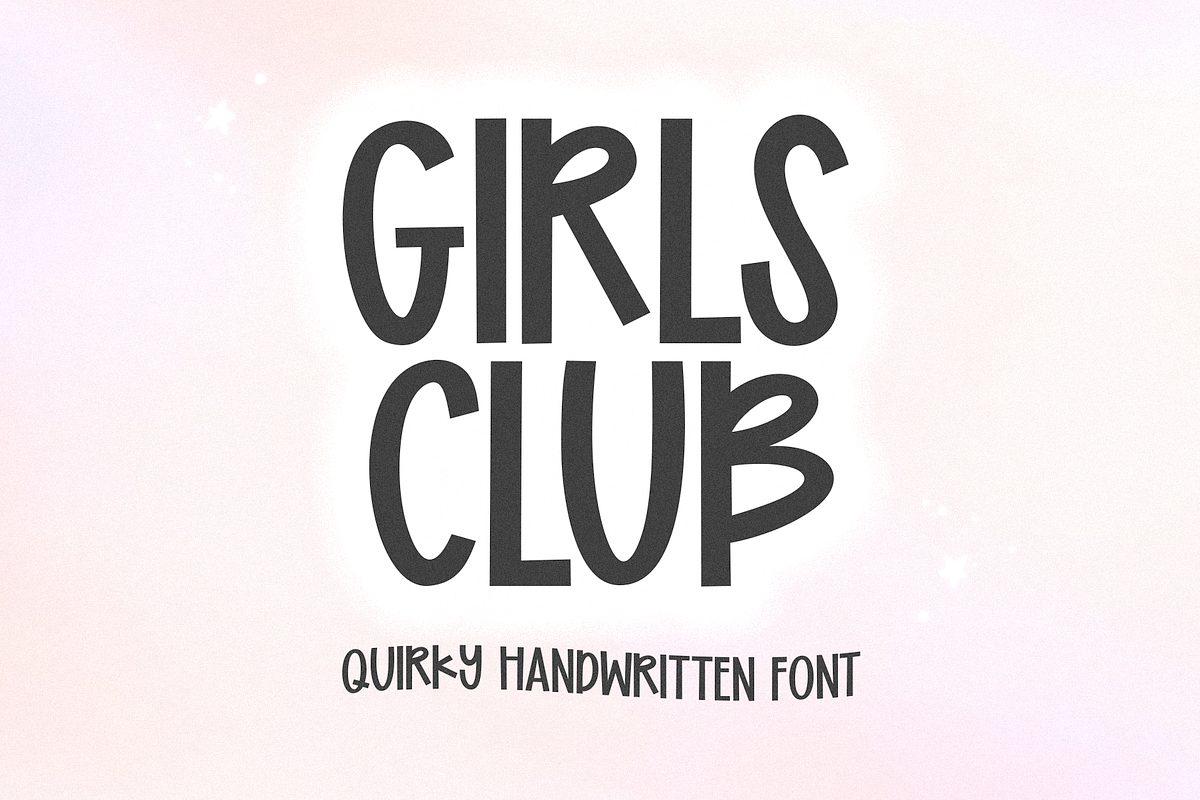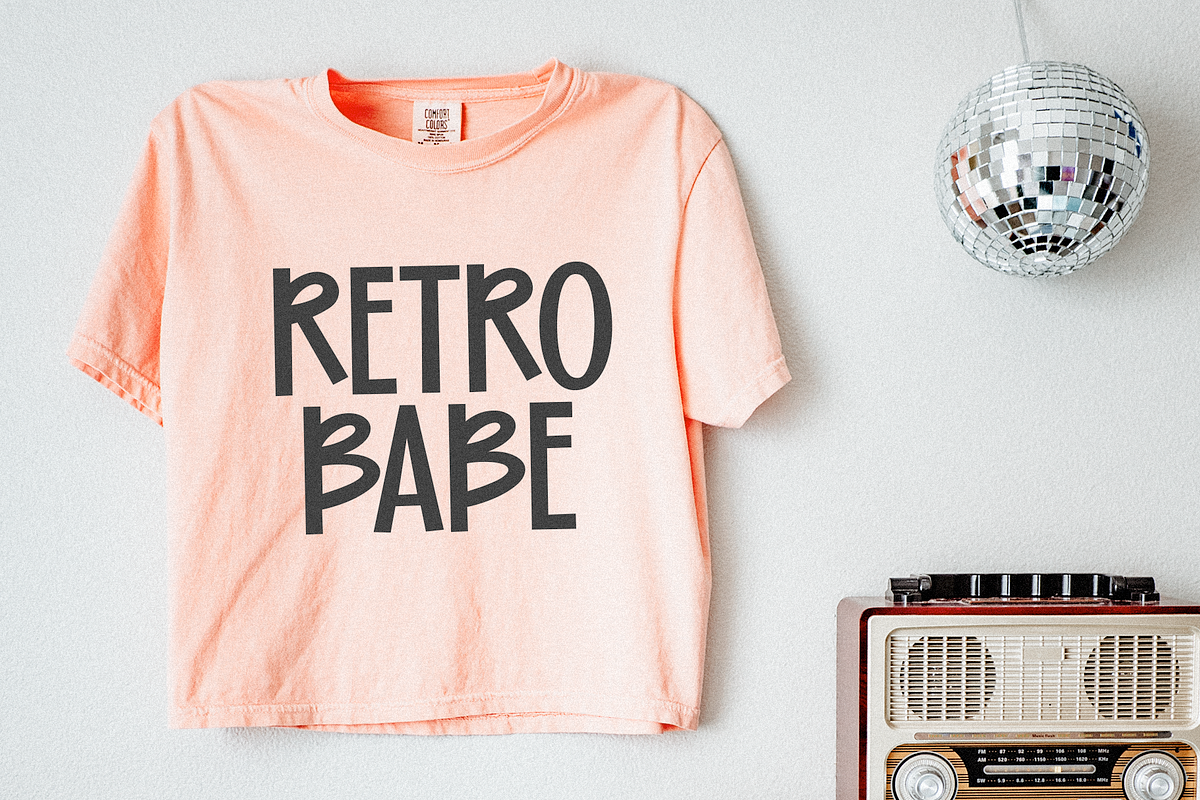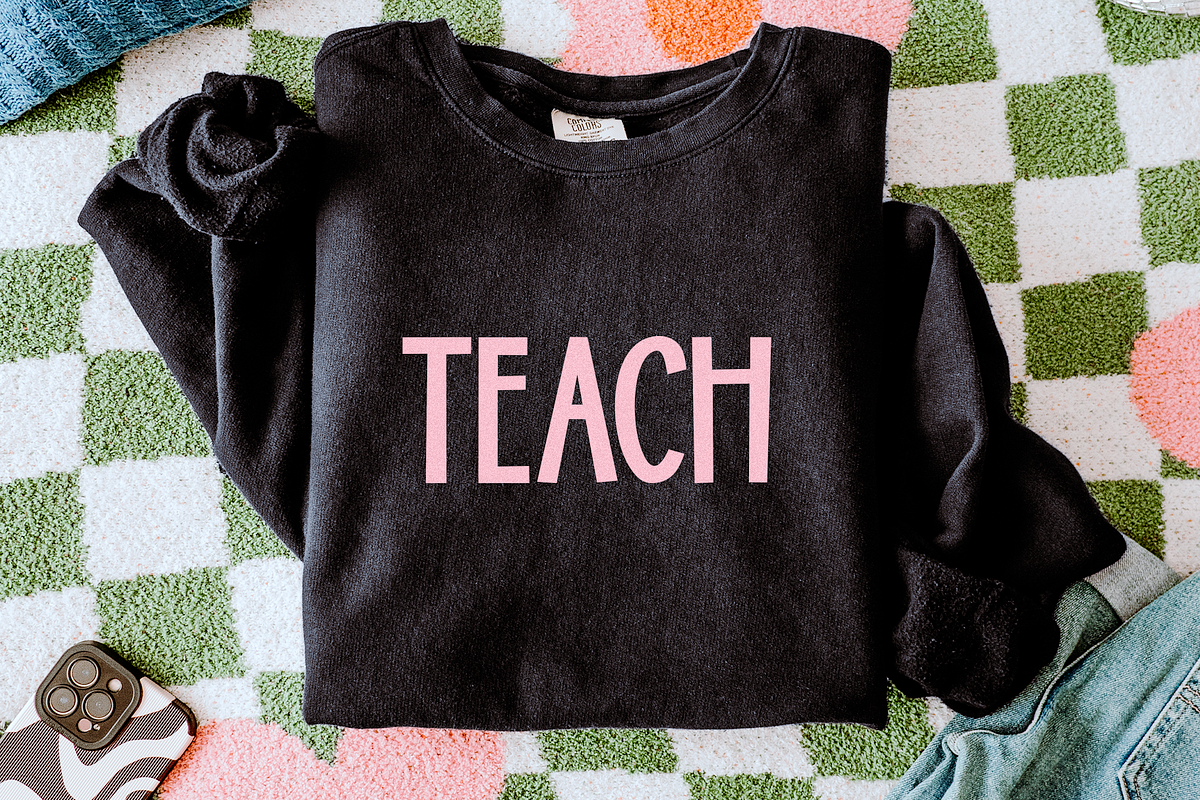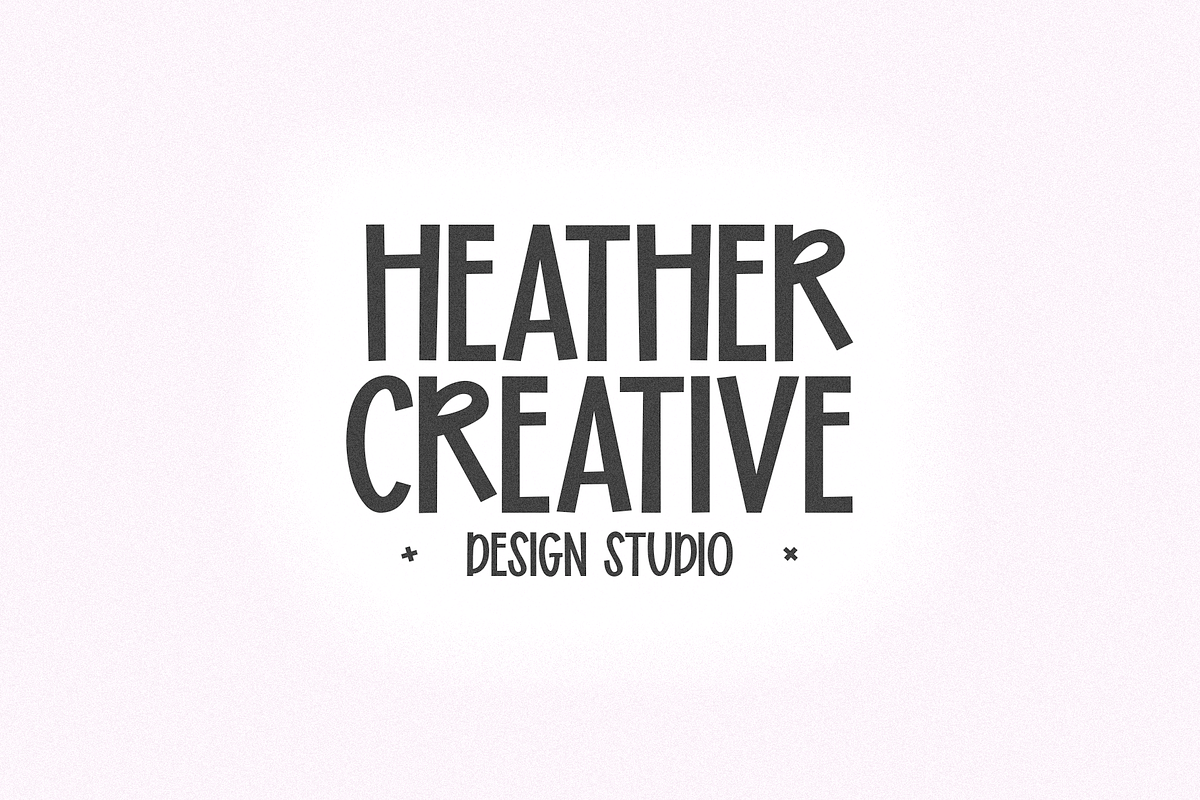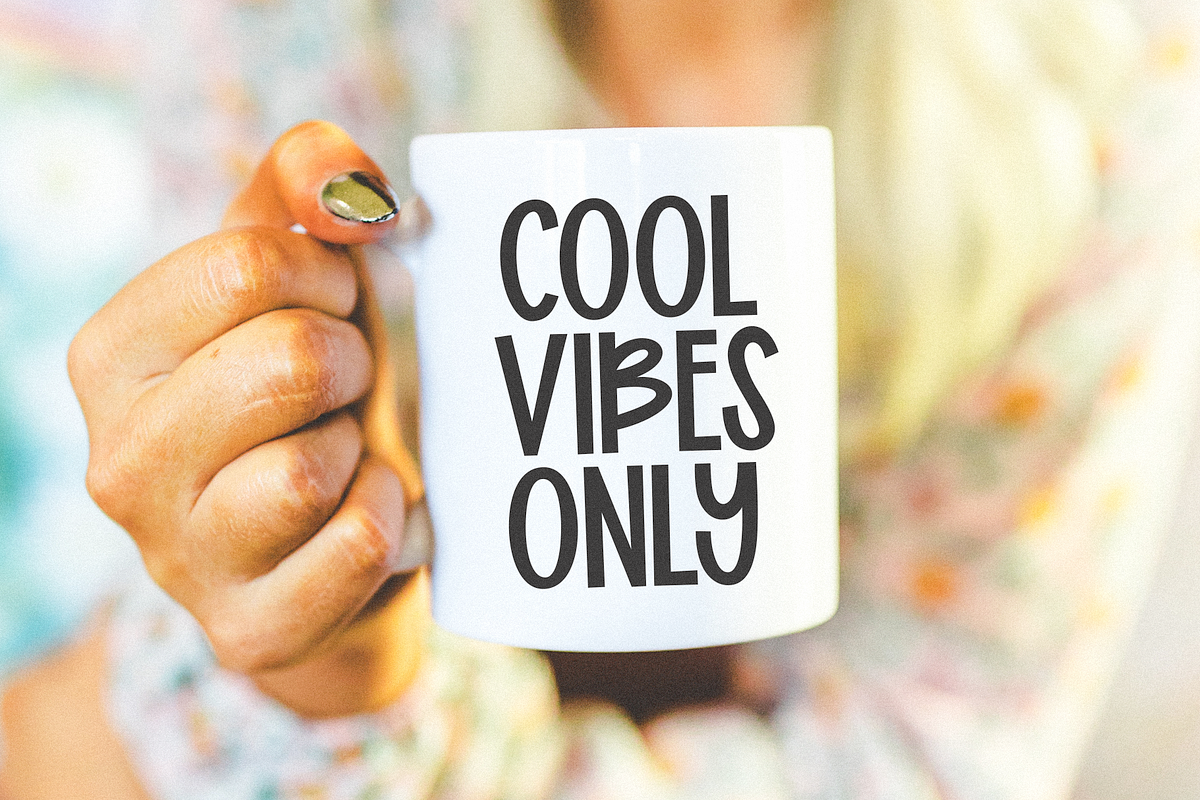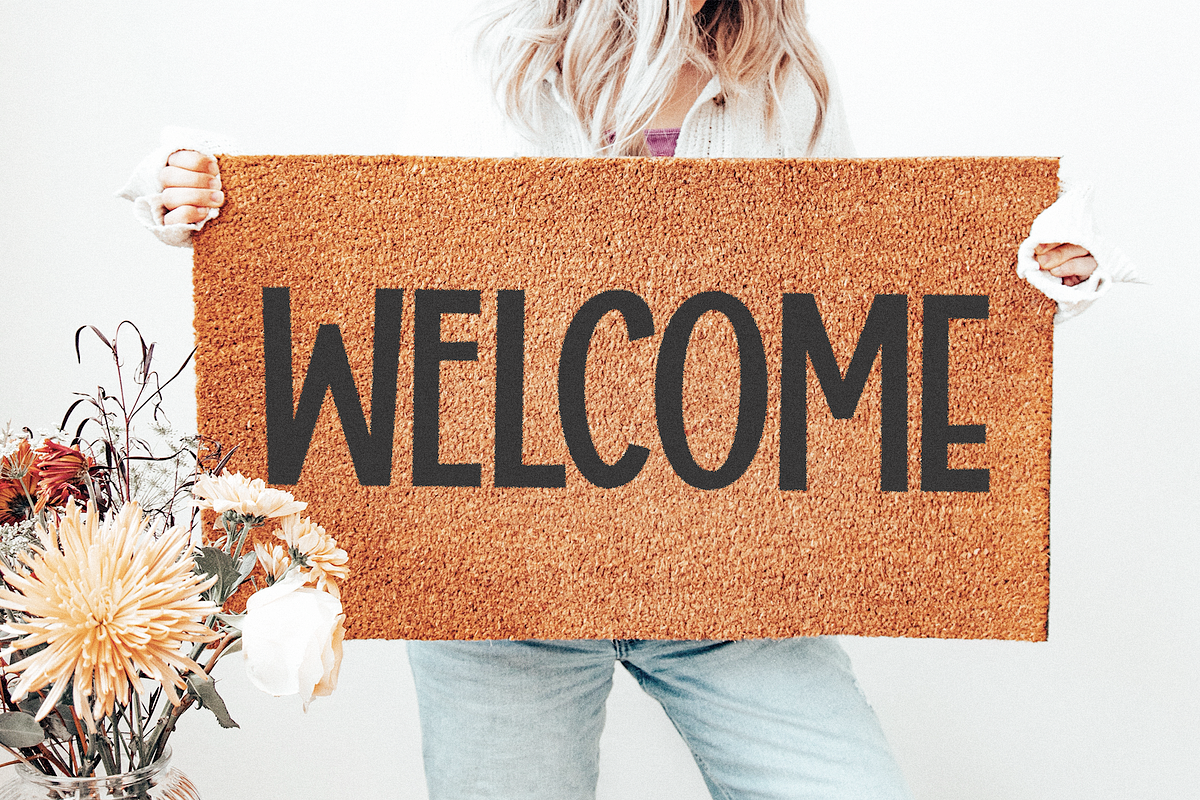
Girls Club | Cute Quirky Font
Girls Club is a quirky handwritten font.
This font is perfect for cricut designs, shirts, svg files, logos, quotes, social media, laser designs, hats, mugs, stickers and more!